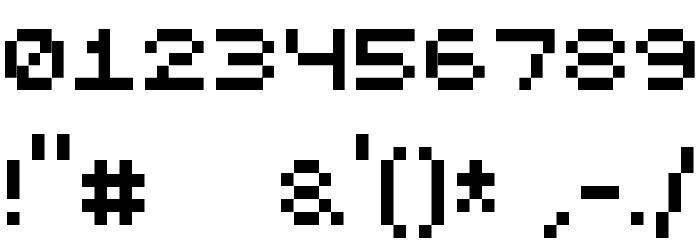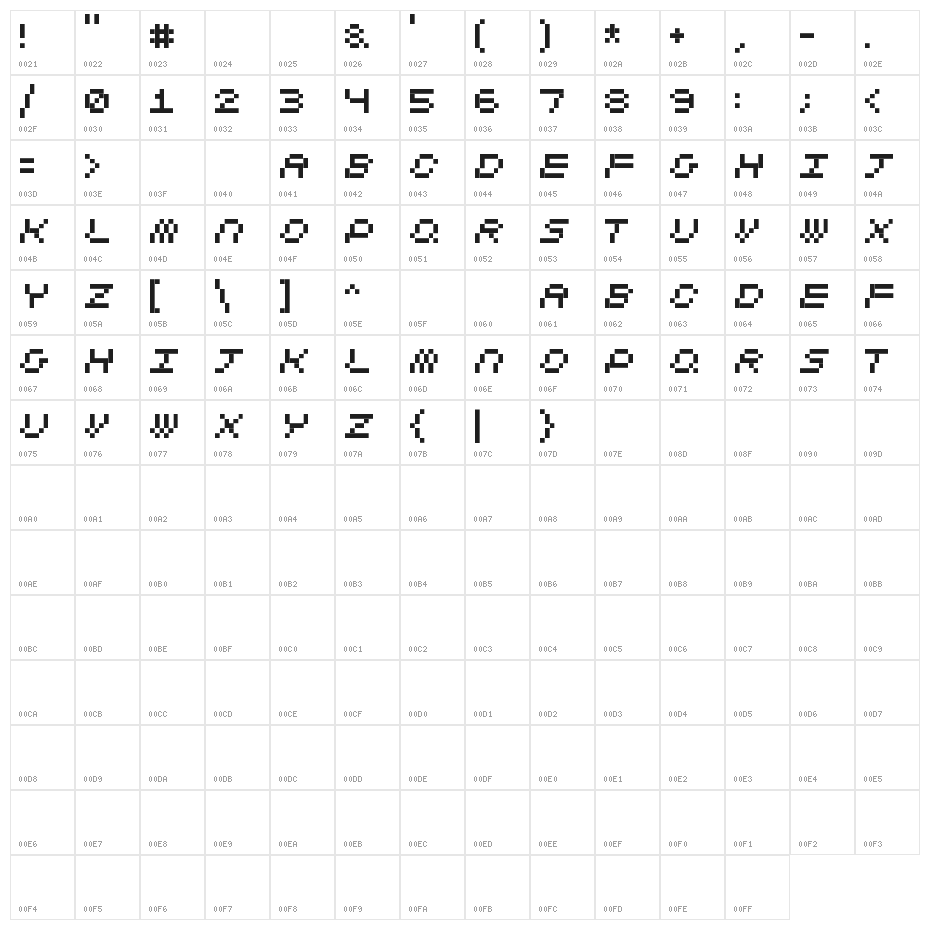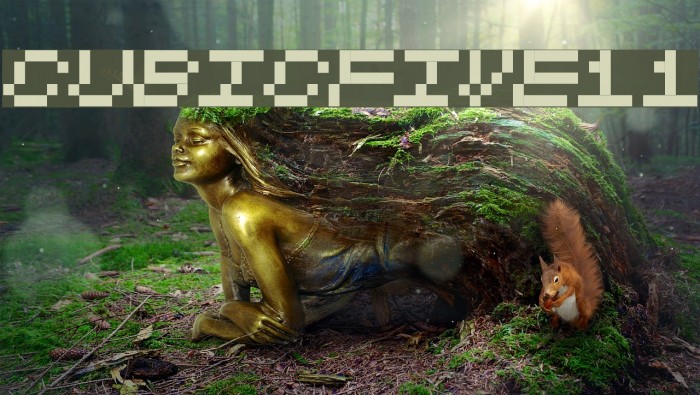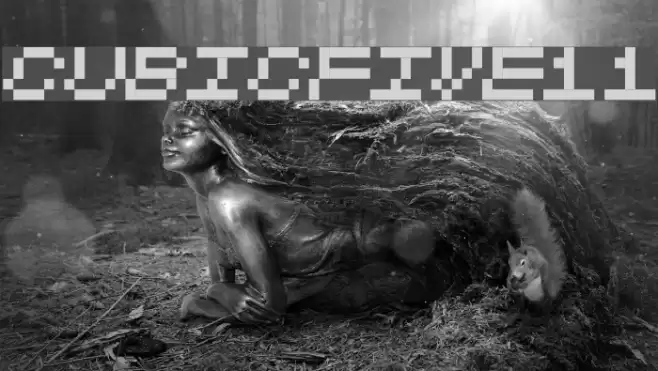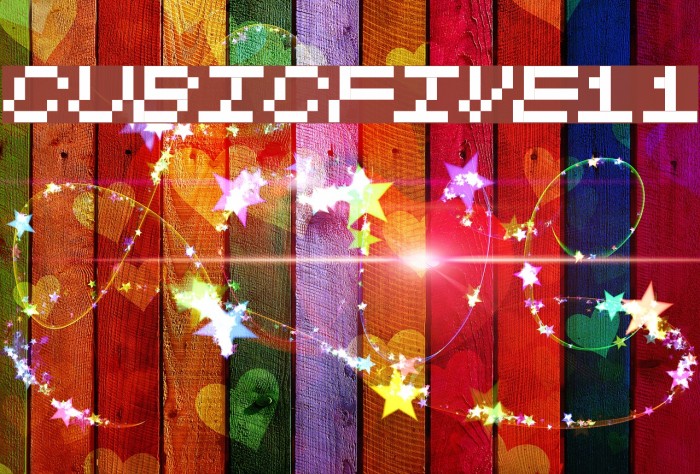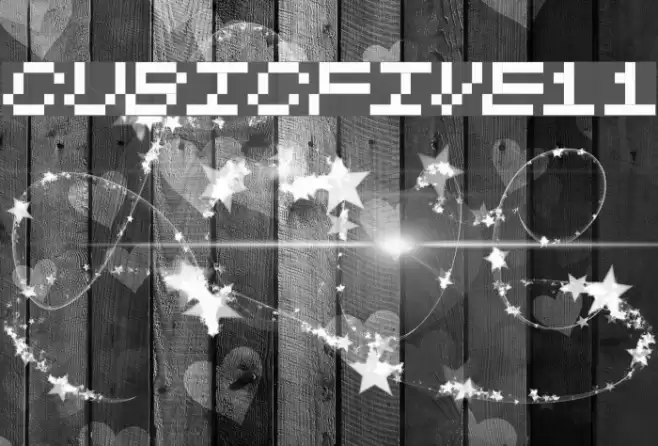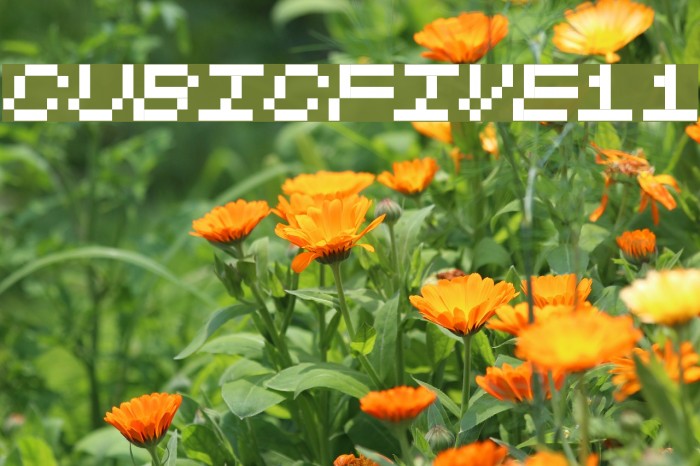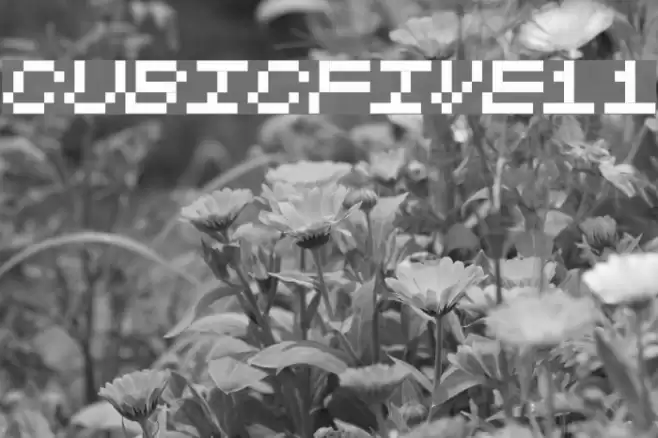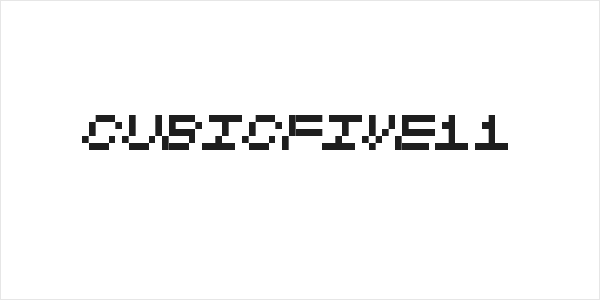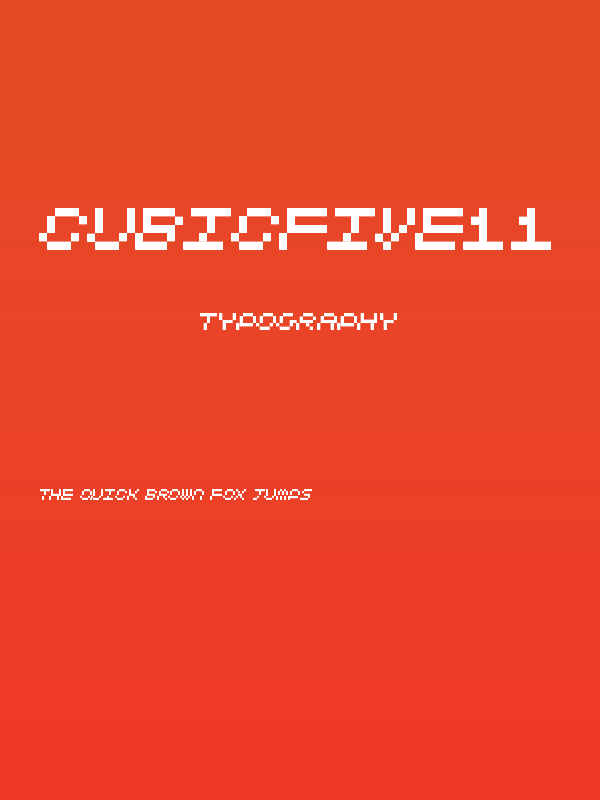
CubicFive11 Font
CubicFive11 Description
This font features a distinct pixelated style reminiscent of early digital displays and retro video games. Each character is constructed with a grid-like precision, giving it a blocky and geometric appearance. The uniformity in height and width across all characters contributes to its monospaced nature, making it ideal for coding or digital art projects. The font's simplicity and clarity ensure readability even at smaller sizes, while its nostalgic aesthetic evokes a sense of vintage computing. The characters are evenly spaced, maintaining a consistent rhythm throughout the text. Special characters and numbers are designed with the same pixelated approach, ensuring a cohesive look across all elements.
| Use Case | Digital displays, Coding, Retro designs |
| Proposed Projects | Ideal for retro video game designs, digital art projects, coding environments, and any creative work that requires a vintage digital look. |